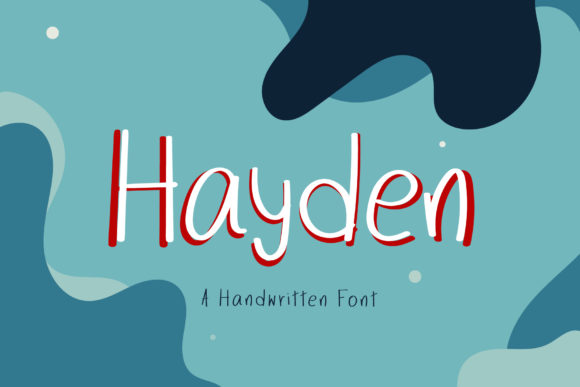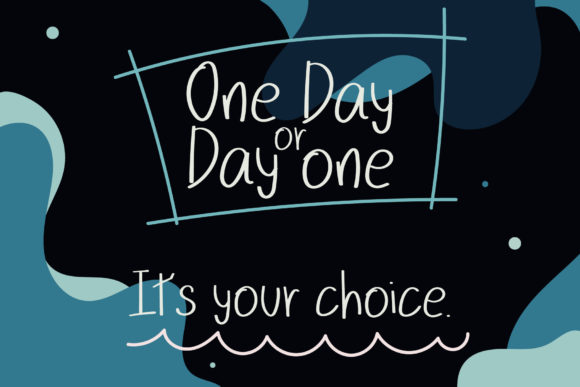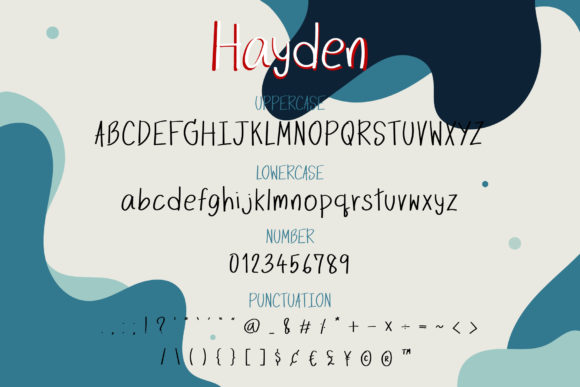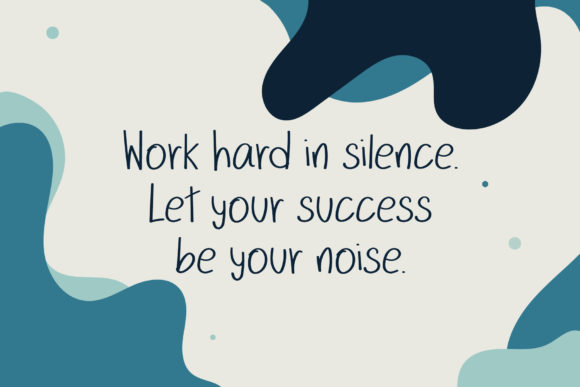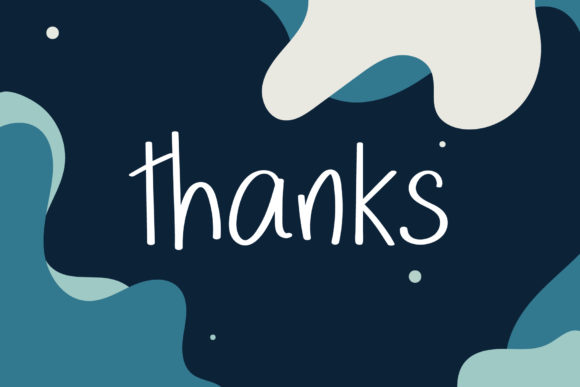
Hayden Font
About Hayden Font
Hayden is a cute handwritten font, carefully handcrafted to become a true favorite. This font will look outstanding in any context, whether it’s being used on busy backgrounds or as a standalone headline!